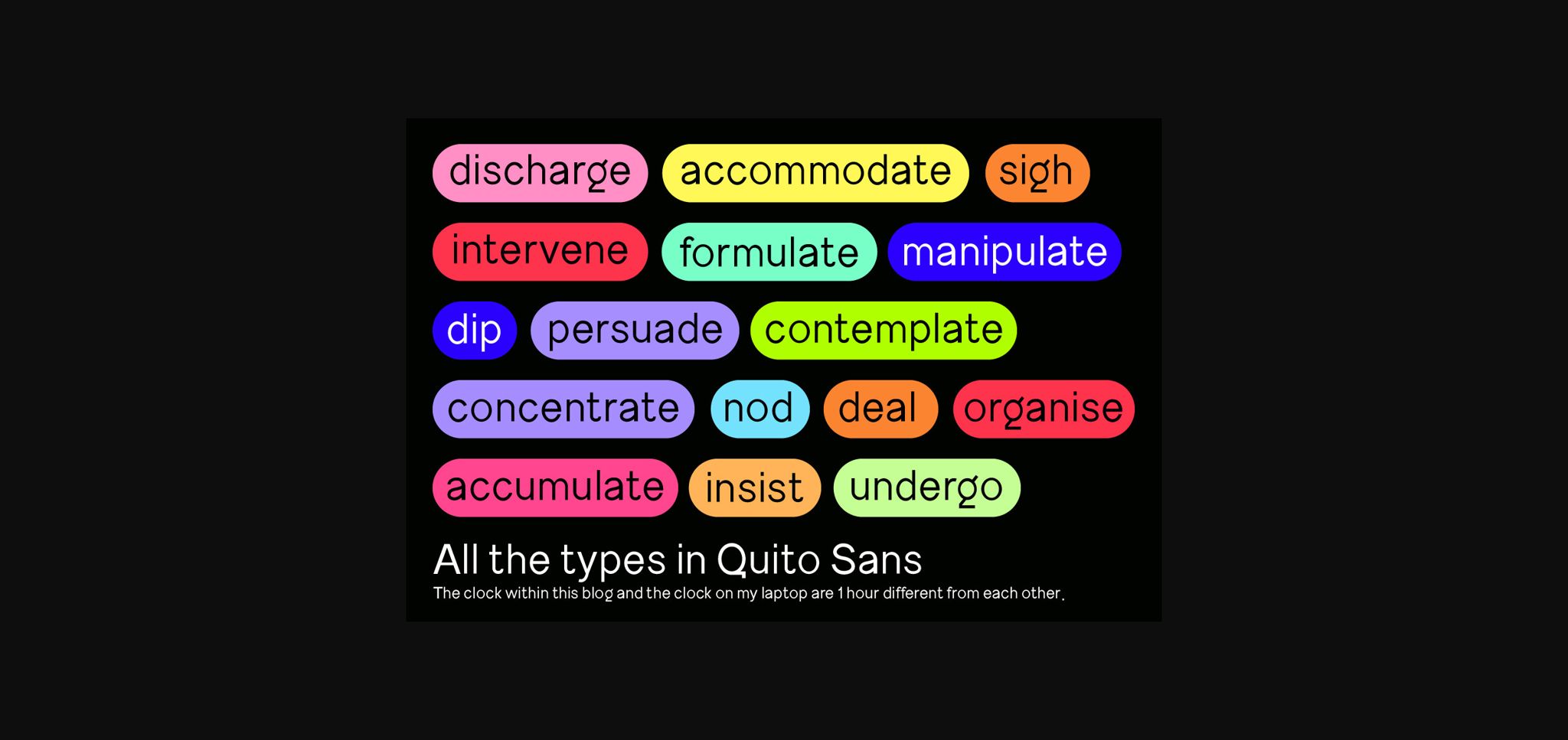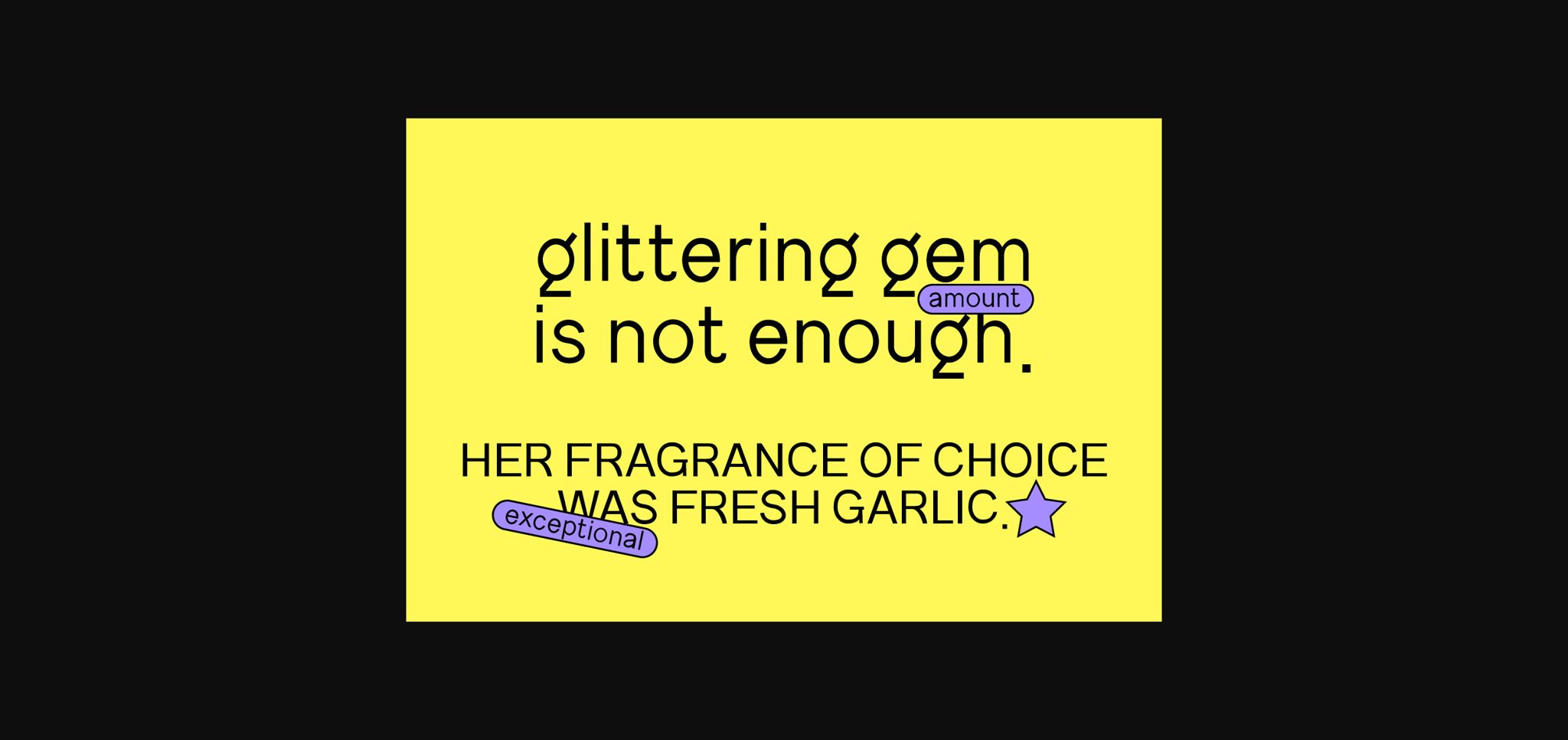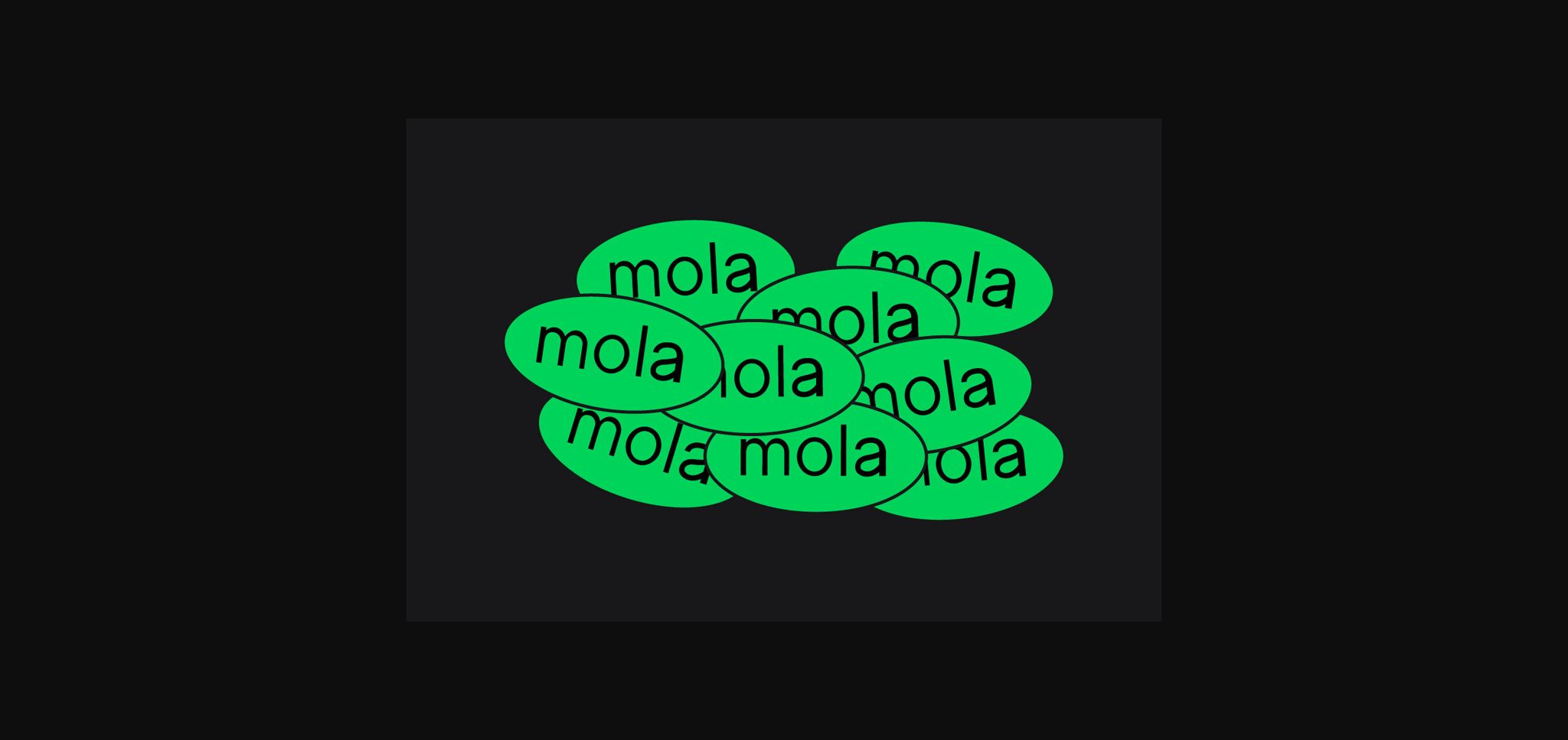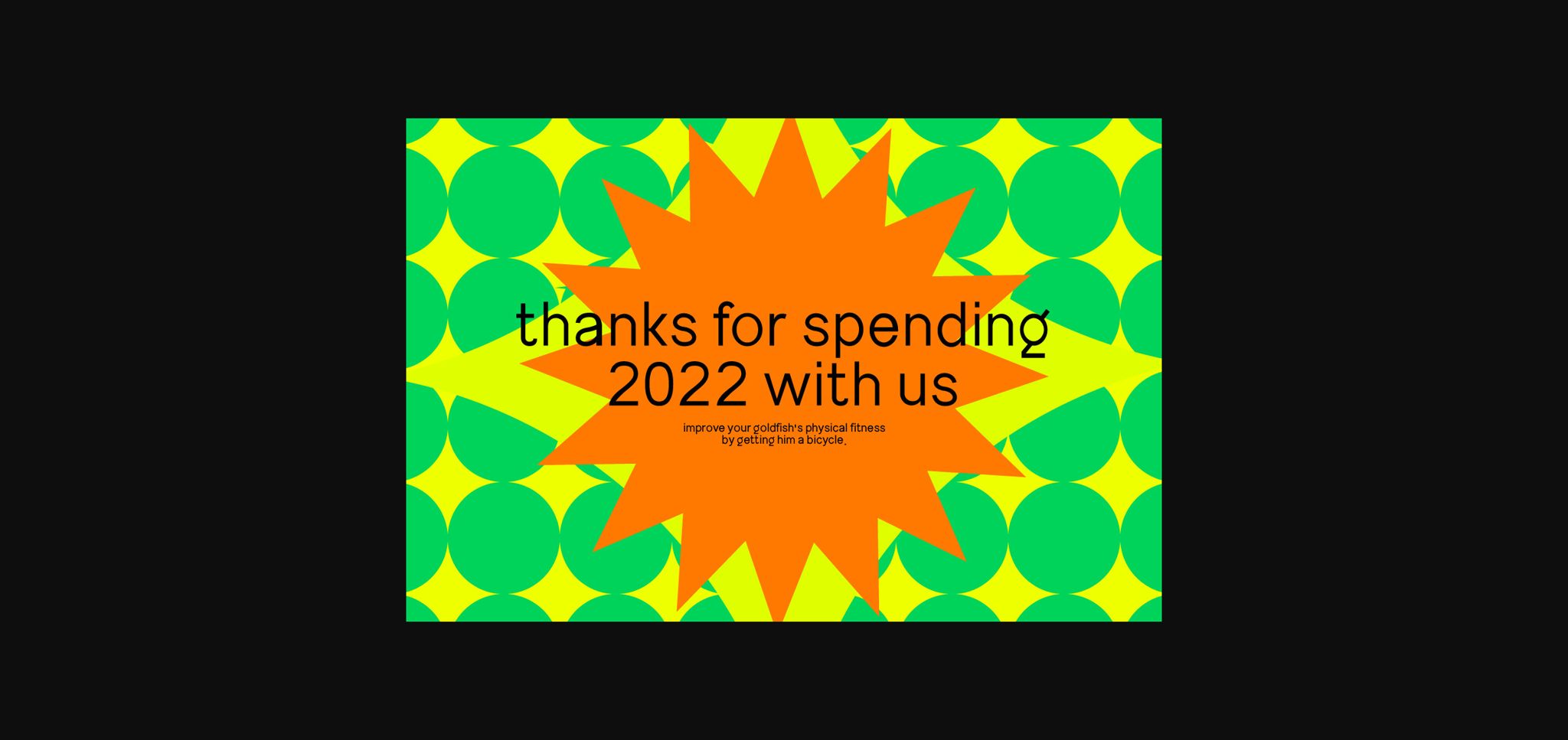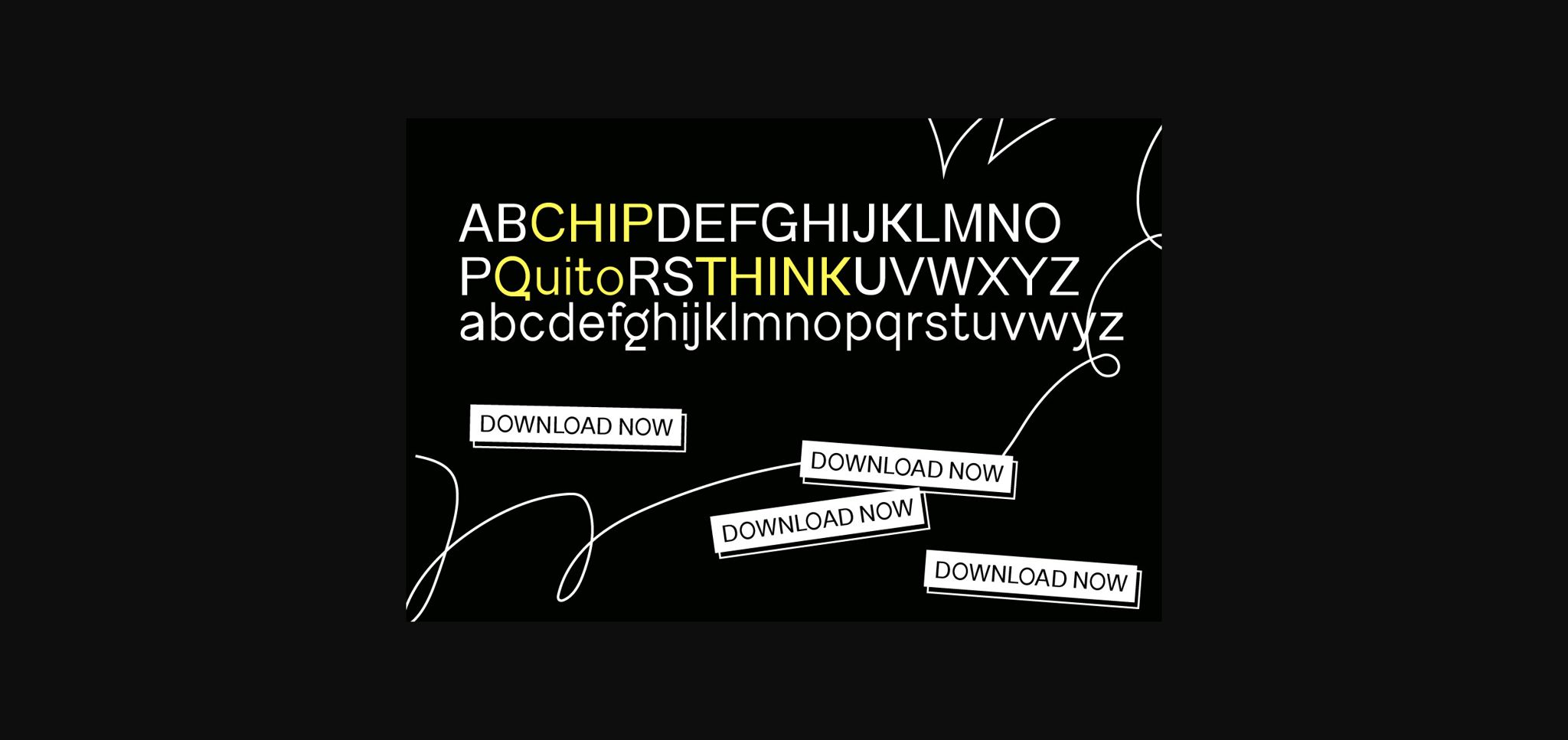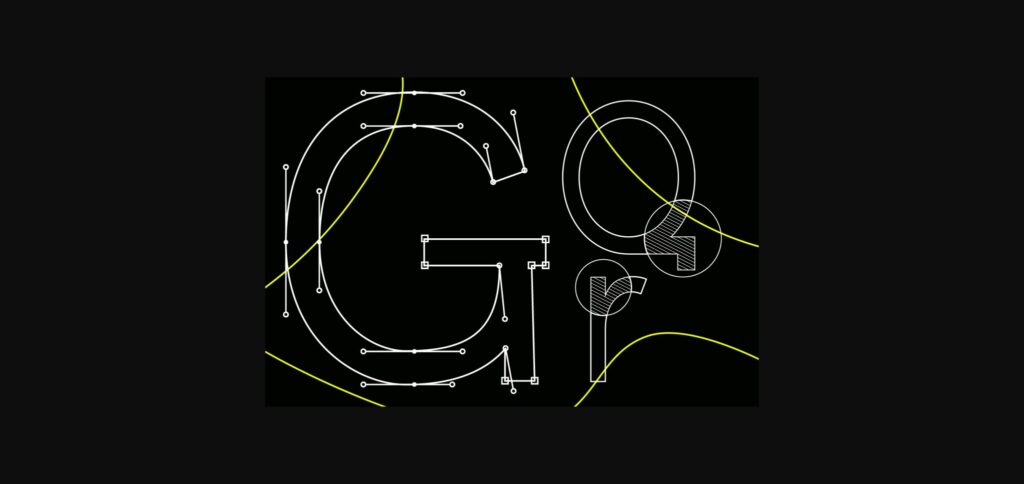
Quito Font
About Quito Font
Introducing Quito, a sleek sans-serif font that embodies modern simplicity and elegance. Quito is the ideal choice for those seeking a contemporary typeface that excels in body text, offering a slender and minimalist design. It’s available in multiple licensing options to accommodate various design needs.
Quito’s clean and minimalist design makes it a perfect choice for modern design projects. Its simplicity ensures readability and versatility, making it suitable for a wide range of applications.
Quito’s slender and elegant letterforms make it an excellent choice for body text in various design contexts. It ensures that your content is both functional and visually pleasing
What sets Quito apart is its sleek and refined appearance. It adds a touch of sophistication to your typography, making it suitable for a wide array of projects.